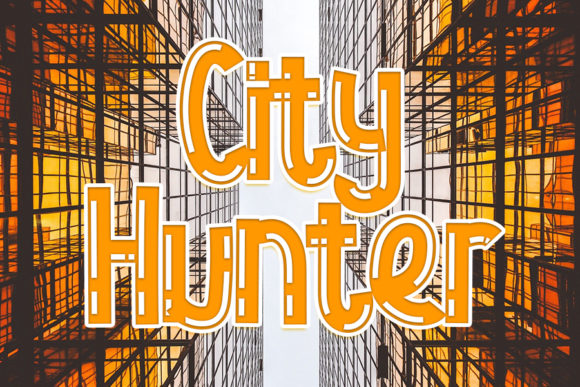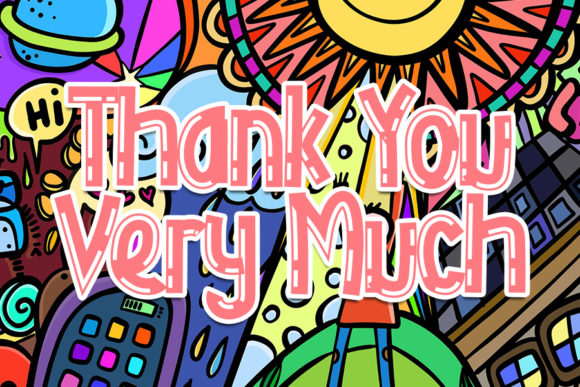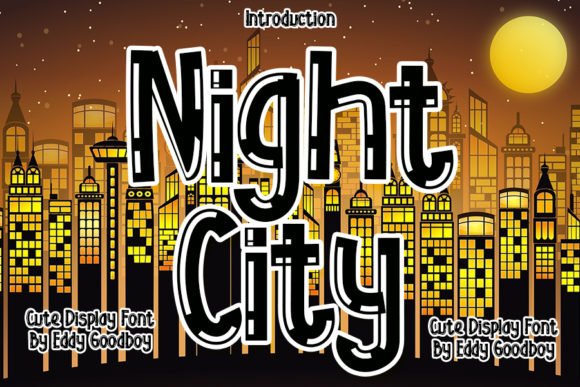
Introduction to Night City Font
Night City is a casual and bold display font.
Trendy and fun, this font will be an incredibly asset to your fonts’ library, as it has the potential to elevate any creation .
Key Features of Night City Font
Why Choose Night City Font?
Night City Font offers exceptional quality and versatility, making it a valuable addition to your design toolkit. Whether you’re creating for personal projects or commercial use, Night City Font delivers professional results.